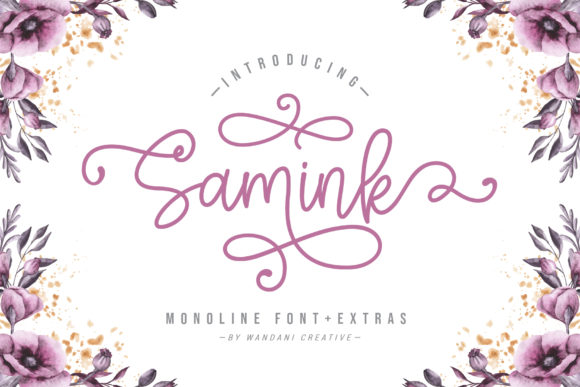
Prepare to be captivated by Samink, a script font that exudes luxury and playfulness, injecting a touch of whimsy into your creative endeavors. Whether you're a seasoned designer or just starting, Samink is the perfect choice to add a touch of magic to your designs.
Imagine your words dancing across the page, infused with an elegant flair that commands attention. Samink's graceful curves and sweeping lines bring a sense of movement and energy to your designs, making them stand out from the crowd. Unleash your creativity and let Samink take you on a journey of artistic expression.
With Samink, the possibilities are endless. Create enchanting invitations that capture the essence of your special occasion, or craft captivating social media posts that leave a lasting impression. Samink's versatility shines in logos and branding, adding a touch of sophistication and charm to your business identity.
Fall in love with Samink, the font that transforms your designs into captivating masterpieces. Its luxurious appeal and playful spirit make it the perfect choice for adding a touch of magic to your creative projects. Embrace the beauty of Samink and let your imagination soar.